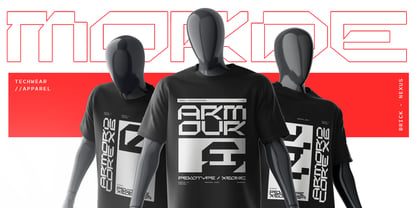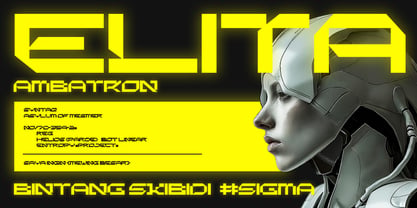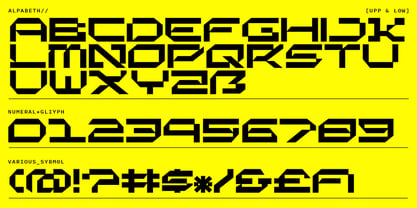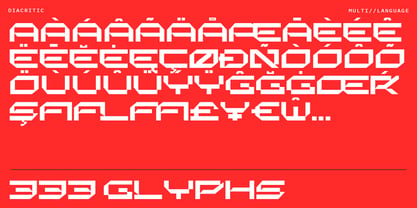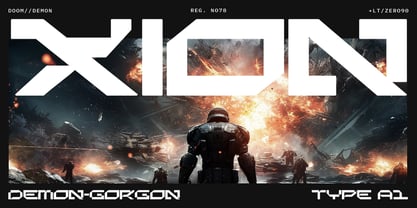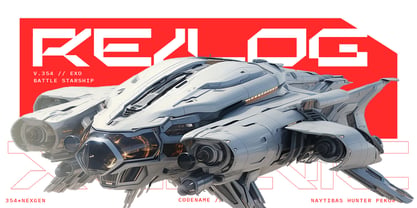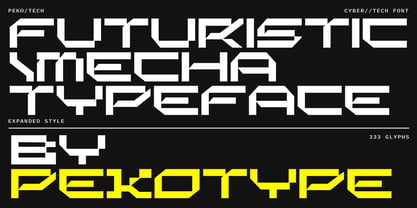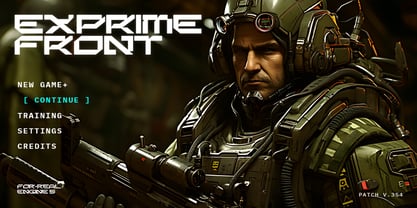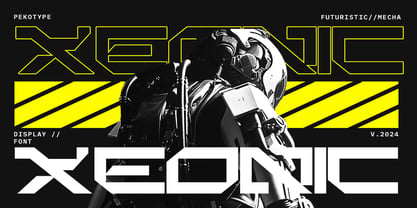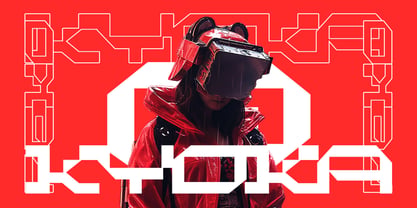
Xeonic
by Pekotype
The Xeonic Font Family was designed by Galang Bryan and published by Pekotype. Xeonic contains 1 styles. More about this family
XEONIC is a striking display font with an expanded form, channeling the essence of futuristic cyberpunk. This eye-catching font is engineered for tech-themed designs, cutting-edge product design, and immersive game user interface. With its sleek and bold characters, XEONIC brings a sense of innovation and modernity to any project, making it an indispensable choice for creatives looking to make a memorable impact. Embrace the future with XEONIC, where every letter tells a story of technology and style.